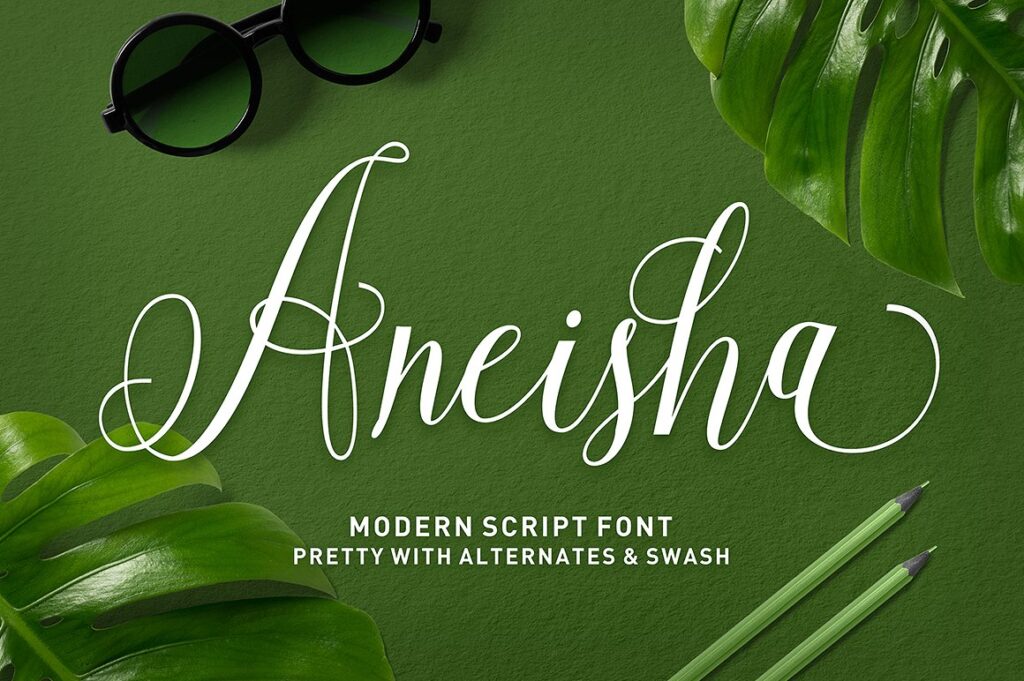
Aneisha Script Font: Elevate Your Typography with Modern Calligraphy
Aneisha Script Font is a stunning modern calligraphy font designed to add a touch of elegance and sophistication to your typography. With its beautiful and stylish appearance, this lovely font is perfect for creating unique headlines, special messages, and eye-catching designs. In this article, we’ll dive into the world of Aneisha Script Font, exploring its features, benefits, and uses, as well as provide tips on how to make the most of this incredible font.
What is Aneisha Script Font?
Aneisha Script Font is a modern calligraphy font that boasts a beautiful, hand-written appearance. Crafted with precision and attention to detail, this font is designed to look pretty and stylish, making it perfect for a wide range of design projects. Whether you’re looking to create stunning headlines, elegant invitations, or eye-catching social media graphics, Aneisha Script Font is the perfect choice.
Key Features of Aneisha Script Font
So, what makes Aneisha Script Font so special? Here are some of its key features:
- Stylistic Alternates: Aneisha Script Font comes with tons of stylistic alternates, allowing you to create wonderfully unique headlines and special messages. With a wide range of alternatives to choose from, you can experiment with different styles and combinations to find the perfect look for your design.
- Modern Calligraphy: Aneisha Script Font is a true representation of modern calligraphy, with its fluid strokes, elegant connections, and beautiful letterforms.
- Hand-written Appearance: This font boasts a genuine hand-written appearance, making it perfect for designs that require a personal touch.
Benefits of Using Aneisha Script Font
So, why should you choose Aneisha Script Font for your design projects? Here are some benefits of using this amazing font:
- Elegance and Sophistication: Aneisha Script Font adds a touch of elegance and sophistication to your designs, making them perfect for high-end brands, luxury products, and special occasions.
- Versatility: This font is incredibly versatile, making it suitable for a wide range of design projects, from wedding invitations and social media graphics to logos and branding materials.
- Unique and Creative: With its tons of stylistic alternates, Aneisha Script Font allows you to create unique and creative designs that stand out from the crowd.
Uses of Aneisha Script Font
Aneisha Script Font is perfect for a wide range of design projects, including:
- Wedding Invitations: Create stunning wedding invitations, save-the-date cards, and thank-you notes with Aneisha Script Font.
- Social Media Graphics: Use this font to create eye-catching social media graphics, including Facebook posts, Instagram stories, and Twitter headers.
- Logos and Branding: Aneisha Script Font is perfect for logos, branding materials, and packaging designs that require a touch of elegance and sophistication.
- Advertising and Marketing: Use this font to create stunning ad campaigns, flyers, and brochures that grab attention and leave a lasting impression.
Tips for Using Aneisha Script Font
Here are some tips for using Aneisha Script Font to get the most out of this amazing font:
- Experiment with Stylistic Alternates: Don’t be afraid to experiment with different stylistic alternates to find the perfect look for your design.
- Pair with Other Fonts: Aneisha Script Font pairs beautifully with other fonts, so don’t be afraid to combine it with different typefaces to create a unique look.
- Use for Headlines and Titles: This font is perfect for headlines and titles, so use it to create stunning headings that grab attention.
Aneisha Script Font is a modern calligraphy font that is sure to elevate your typography to the next level. With its beautiful and stylish appearance, tons of stylistic alternates, and versatility, this font is perfect for a wide range of design projects. Whether you’re looking to create stunning headlines, elegant invitations, or eye-catching social media graphics, Aneisha Script Font is the perfect choice. So why wait? Download Aneisha Script Font today and start creating amazing designs that leave a lasting impression!
- What is Aneisha Script Font? Aneisha Script Font is a modern calligraphy font designed to look pretty and stylish.
- What are stylistic alternates? Stylistic alternates are alternative letterforms that allow you to create unique and creative designs.